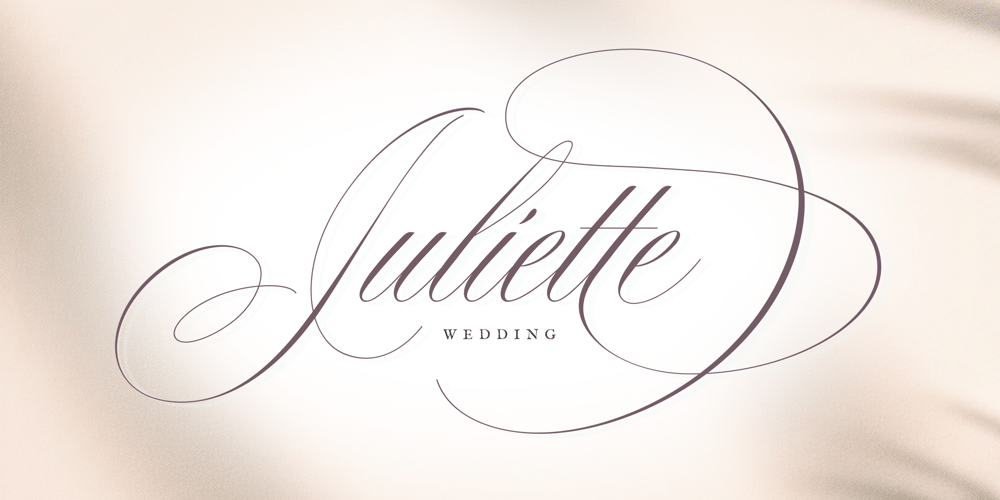
Juliette Wedding Font Family was designed by Dmitrii Mikitenko and published by BlessedPrint. Juliette Wedding contains 9 styles and family package options. Introducing Juliette Wedding Font, a beautifully romantic script inspired by the elegance of Spencerian script and American handwriting. Perfect for creating unique wedding invitations, elegant signage, and sophisticated designs. With over 1600 glyphs and an extensive array of alternates and swashes for both uppercase and lowercase letters, the creative possibilities are endless.Activate ligatures and type a number after the letter to use alternate glyphs: a1, a2, a3. Some letters have 40 or more variations. Multilingual: Supports major European languages: Czech, Danish, Dutch, English, French, German, Italian, Latvian, Lithuanian, Norwegian, Polish, Portuguese, Romanian, Slovak, Spanish,Swedish, Turkish and more.